Today is all about elegant signature font duos.
There are lots of different kinds of font duos out there! Some are playful, some are subdued. These ones? These ones just look rich. I mean, these are the kinds of fonts I would expect on a high-end perfume bottle.
To that end, I thought these font duos would be great for branding! If you’re starting up a new business, or looking to give your existing company a lavish facelift, these would make great fonts for branding!
There are great combinations of classy signature fonts with various elegant serifs or minimalist sans serifs.
Now for our Luxurious Signature Font Duos!
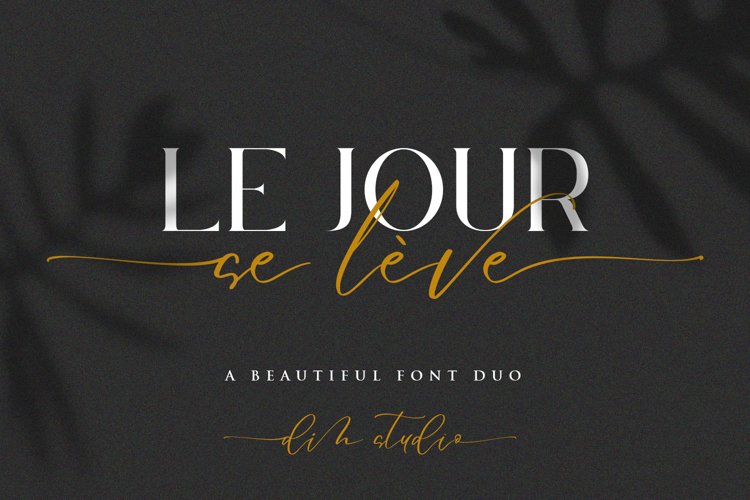
Aren’t these fonts just gorgeous!